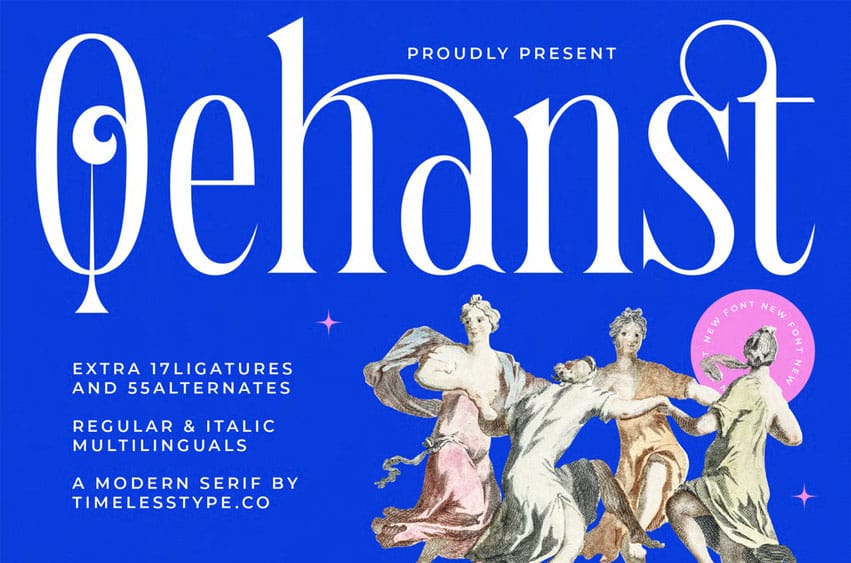
Qehanst Font is a modern serif display crafted with tall proportions, refined strokes, and elegant high-contrast curves that bring a sense of classic artistry into contemporary design. Featuring 17 expressive ligatures and 55 stylistic alternates—including both Regular and Italic—this typeface delivers a versatile typographic system for branding, editorial layouts, luxury packaging, posters, art-inspired visuals, and high-end logo work.
Its sculpted terminals and ornamental flair give every word a graceful motion, while multilingual support ensures seamless use across global projects. Qehanst is built for designers who want a serif that feels sophisticated, artistic, and unmistakably modern.